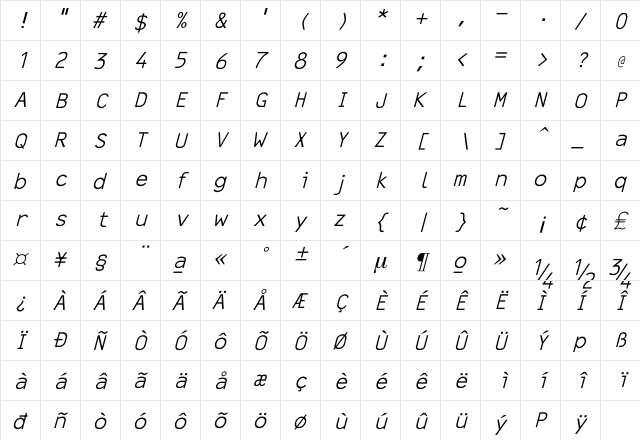
Line Printer Italic
Design Context for Line Printer Typeface
Line Printer is a composed and adaptable typeface that performs quietly and consistently across a wide range of design contexts. The dynamic lean of this cut emphasises speed and emphasis in any layout.
Pro Tip: Try Line Printer for annotation and caption copy alongside an upright companion — the contrast in angle creates a dynamic but ordered typographic system.